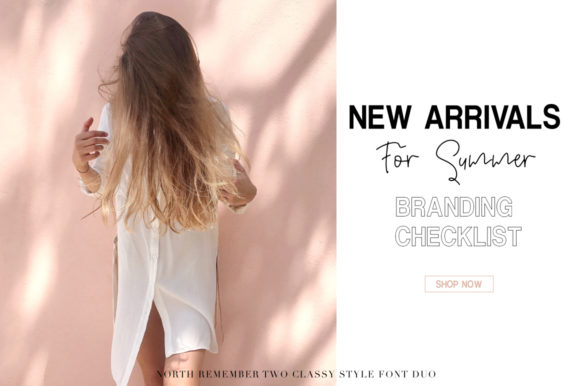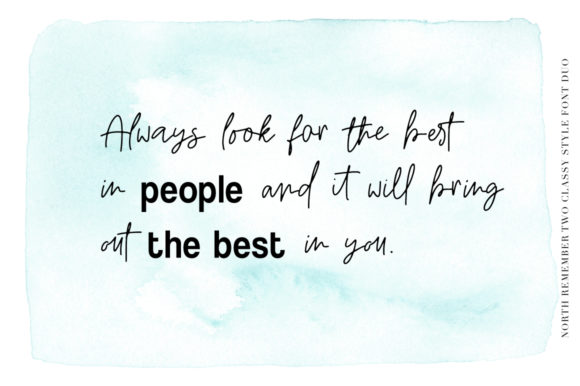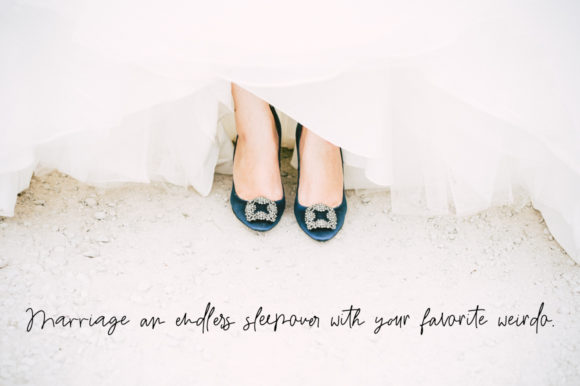
Introduction to North Remember Duo Font
Have you ever stared at a blank canvas, eager to bring a creative project to life, only to be stuck on the perfect font? The frustration can be real, but what if you stumbled upon the perfect design resource to elevate your work? I’ve been there, and that’s exactly what led me to the North Remember Duo Font.
This high-quality font duo boasts a fashionable, yet striking look that’s perfect for high-impact headlines. With a free download available, designers can easily incorporate this versatile font into their creative projects, adding an extra layer of sophistication and style. Whether you’re working on a personal or professional project, the North Remember Duo Font is sure to make a statement.
Key Features of North Remember Duo Font
- Unique duo font design with a transparent background, perfect for layered compositions
- Includes two distinct font styles with a range of character combinations for added versatility
Honest Review: North Remember Duo Font
I recently stumbled upon the North Remember Duo Font, a stunning free download that’s quickly become a go-to design resource for my creative projects. This high-quality font is perfect for anyone looking to add a touch of elegance and sophistication to their work.
What works well: ✨ The North Remember Duo Font comes in two weights – regular and bold – making it incredibly versatile and easy to use. The transparent background and crisp lines give the font a clean, modern look that’s perfect for logos, headers, and other design elements. The font is also incredibly easy to customize, making it a great choice for designers of all levels.
Limitations: ⚠️ While the North Remember Duo Font is a high-quality download, it’s not without its limitations. The font may not be suitable for extended text blocks, as the bold weight can sometimes feel a bit overpowering. Additionally, the font may not be compatible with all operating systems or software.
Overall impression: I’m thoroughly impressed with the North Remember Duo Font. Its high-quality design and versatility make it a must-have for any designer’s toolkit. Whether you’re working on a logo, brochure, or website, this font is sure to deliver.
- Perfect for logos, headers, and other design elements
- Easy to customize and use
- Two weights available (regular and bold)
Tips for Getting the Most Out of the North Remember Duo Font
To get the most out of the North Remember Duo Font, be sure to use it with a transparent background to create a clean and modern design. You can also experiment with different font sizes, colors, and combinations to create a unique look.
The North Remember Duo Font is perfect for a variety of creative projects, including logos, business cards, and social media graphics. Its high-quality design and transparent background make it a versatile and practical design resource.